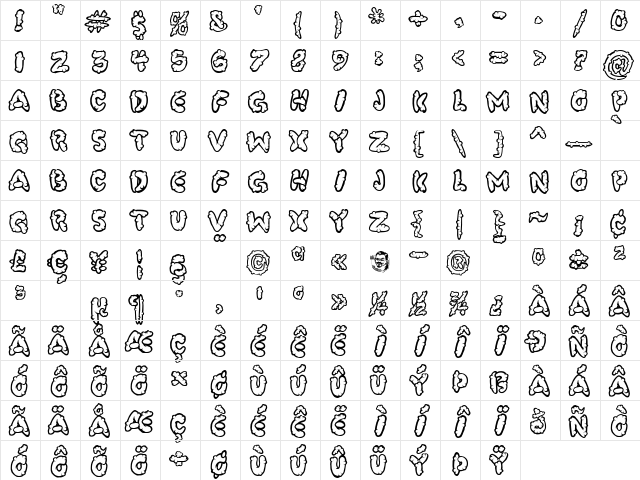
PooCorny Regular Free Font
PooCorny Regular
PooCorny Family
Design Context for PooCorny
PooCorny is a composed and adaptable typeface that performs quietly and consistently across a wide range of design contexts.